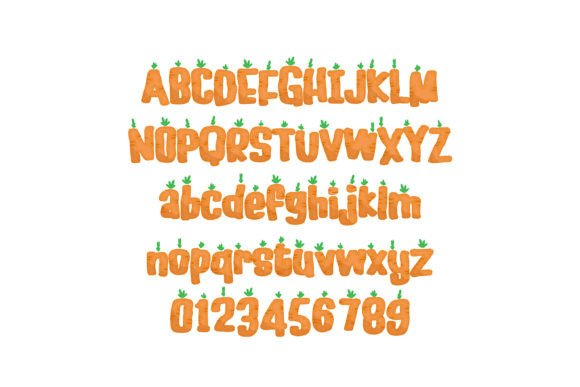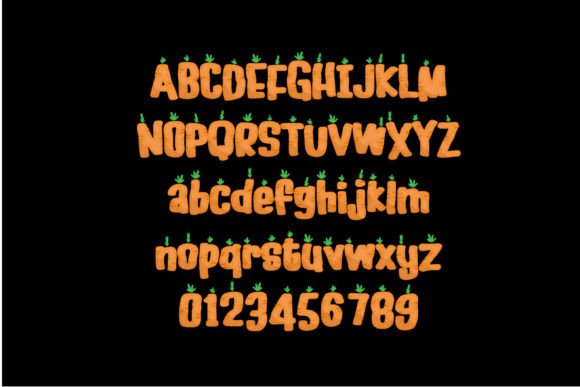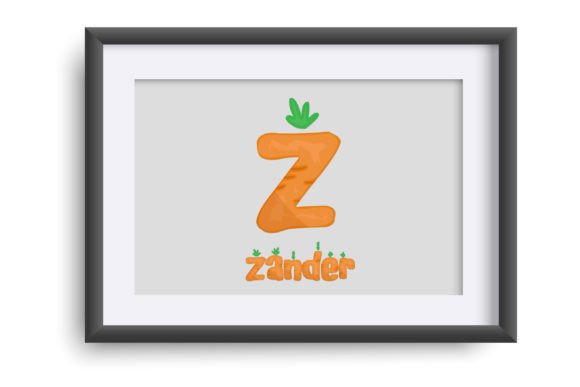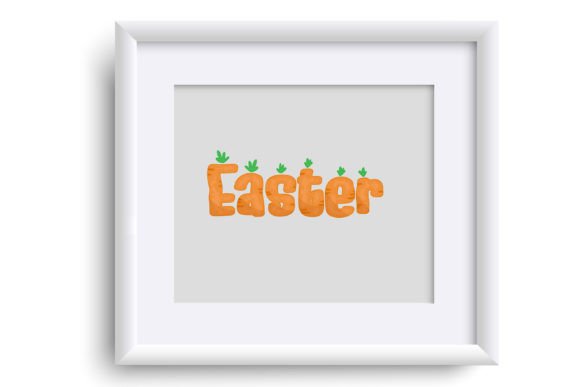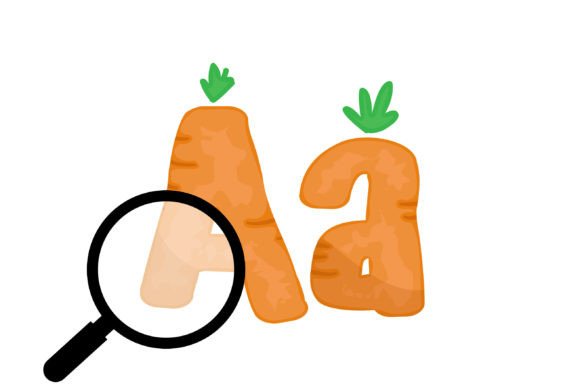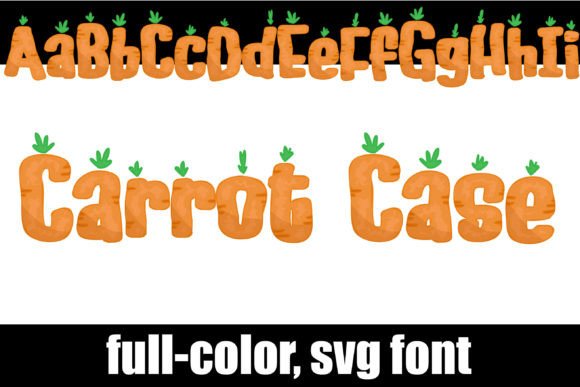
Introducing Carrot Case Font: The Vibrant and Playful Color Font Inspired by Carrots!
Are you tired of using the same old boring fonts in your designs? Look no further! Carrot Case Font is here to add a pop of color and fun to your creations. This innovative color font is inspired by the vibrant shades of carrots, bringing a fresh and playful twist to your designs.
The Inspiration Behind Carrot Case Font
Carrots are known for their bright orange color, but have you ever stopped to think about the range of hues they come in? From light pastel oranges to deep burnt oranges, the color palette of carrots is surprisingly diverse. Carrot Case Font takes inspiration from this natural beauty, bringing a range of bright orange hues to your designs.
But that’s not all – each letter in Carrot Case Font also features playful green accents, adding depth and visual interest to your designs. The combination of orange and green creates a bold and eye-catching effect that’s sure to stand out from the crowd.
What Makes Carrot Case Font So Special?
So, what sets Carrot Case Font apart from other fonts on the market? Here are just a few reasons why designers and crafters are falling in love with this fun and playful color font:
- Unique Color Palette: Carrot Case Font features a range of bright orange hues, from light to dark, with playful green accents for added depth.
- Bold and Eye-Catching: The combination of orange and green creates a bold and eye-catching effect that’s sure to stand out from the crowd.
- Perfect for Designs: Carrot Case Font is perfect for creating bold and eye-catching designs, from posters and flyers to social media graphics and branding materials.
- Easy to Use: Carrot Case Font is a color font, making it easy to use and customize in your designs.
How to Use Carrot Case Font in Your Designs
Ready to add some fun and personality to your designs with Carrot Case Font? Here are a few tips for getting started:
- Pair with Neutral Backgrounds: Let Carrot Case Font be the star of the show by pairing it with neutral backgrounds that won’t compete for attention.
- Experiment with Color Combinations: Don’t be afraid to experiment with different color combinations to find the perfect look for your design.
- Use for Headlines and Titles: Carrot Case Font is perfect for headlines and titles, adding a bold and eye-catching touch to your designs.
- Add Texture and Patterns: Consider adding texture and patterns to your design to give it added depth and visual interest.
Carrot Case Font is perfect for designers and crafters looking to add a fun and playful touch to their creations. Whether you’re working on a branding project, creating social media graphics, or designing print materials, this innovative color font is sure to bring a smile to your face.
Designers will love the versatility of Carrot Case Font, which can be used in a range of design applications, from logos and icons to posters and flyers. Crafters will appreciate the ease of use and customization options available with this color font.
In conclusion, Carrot Case Font is a fun and playful color font that’s sure to add a pop of color and personality to your designs. With its unique color palette, bold and eye-catching effect, and ease of use, this font is perfect for designers and crafters looking to create bold and eye-catching designs that stand out from the crowd.